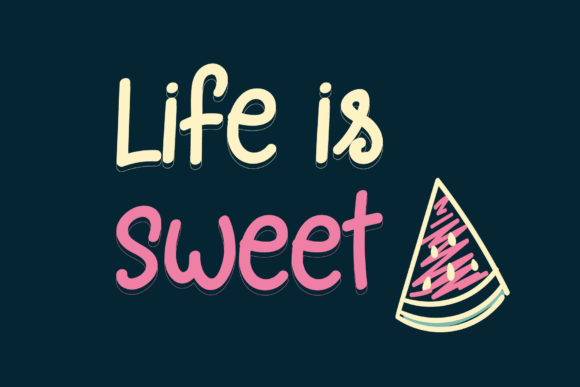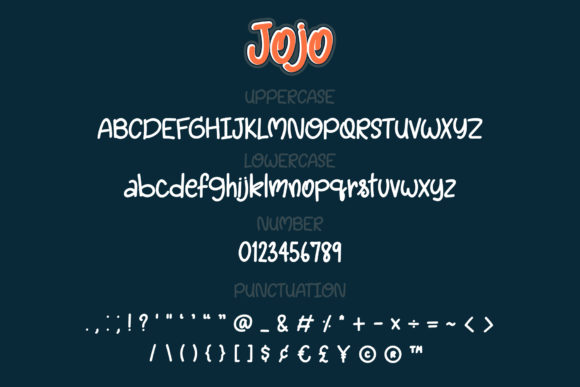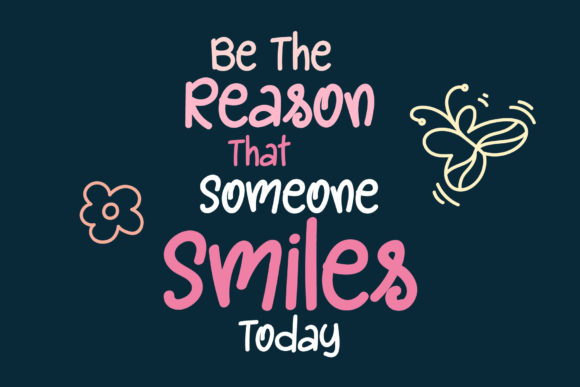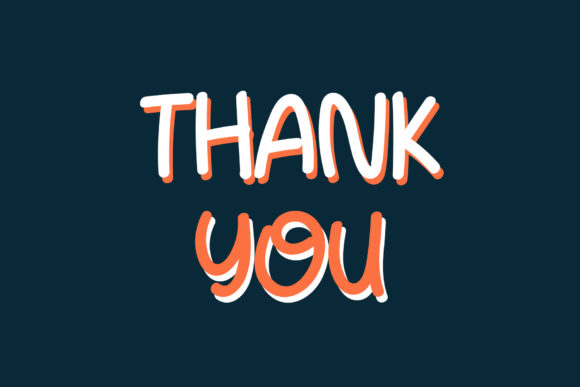
Jojo Font
About Jojo Font
Jojo is a magical handwritten font carefully created with a distinct touch. It features an incredibly relaxed and playful style. Jojo is the perfect font for making colorful and spectacular designs!